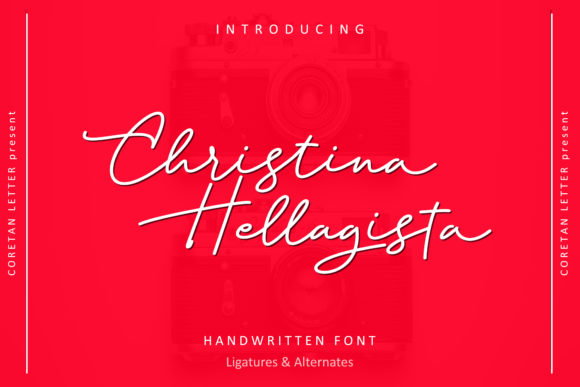
About Bellagista Font
Bellagista is a lovely, thick lettered, paint brushed script font. It has beautiful and well balanced characters and as a result, it matches a wide pool of designs. This font is PUA encoded which means you can access all of the glyphs and swashes with ease!